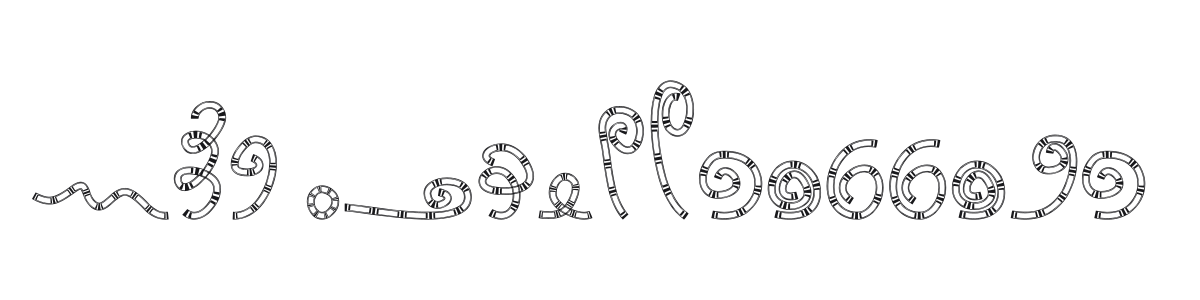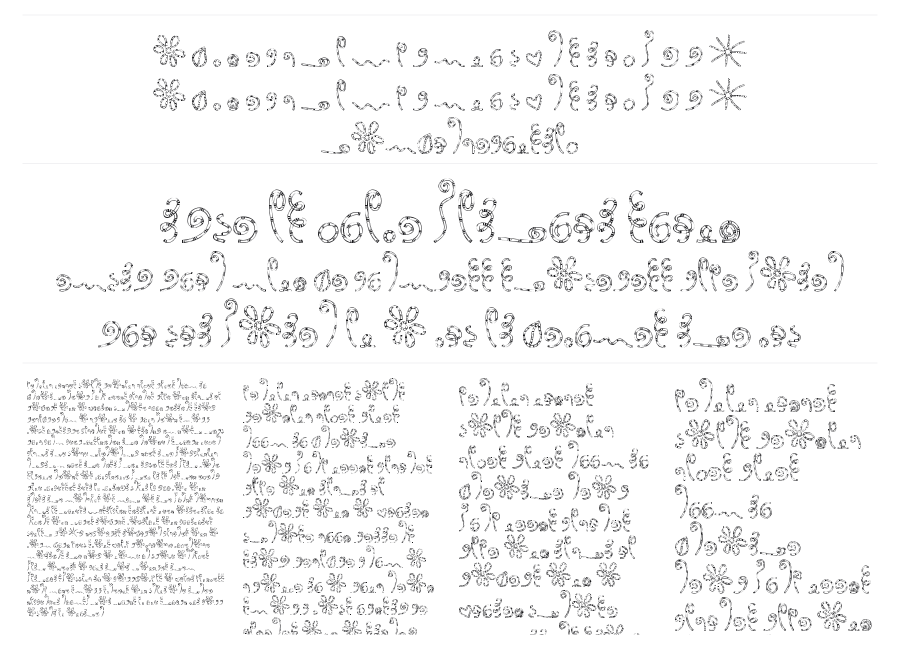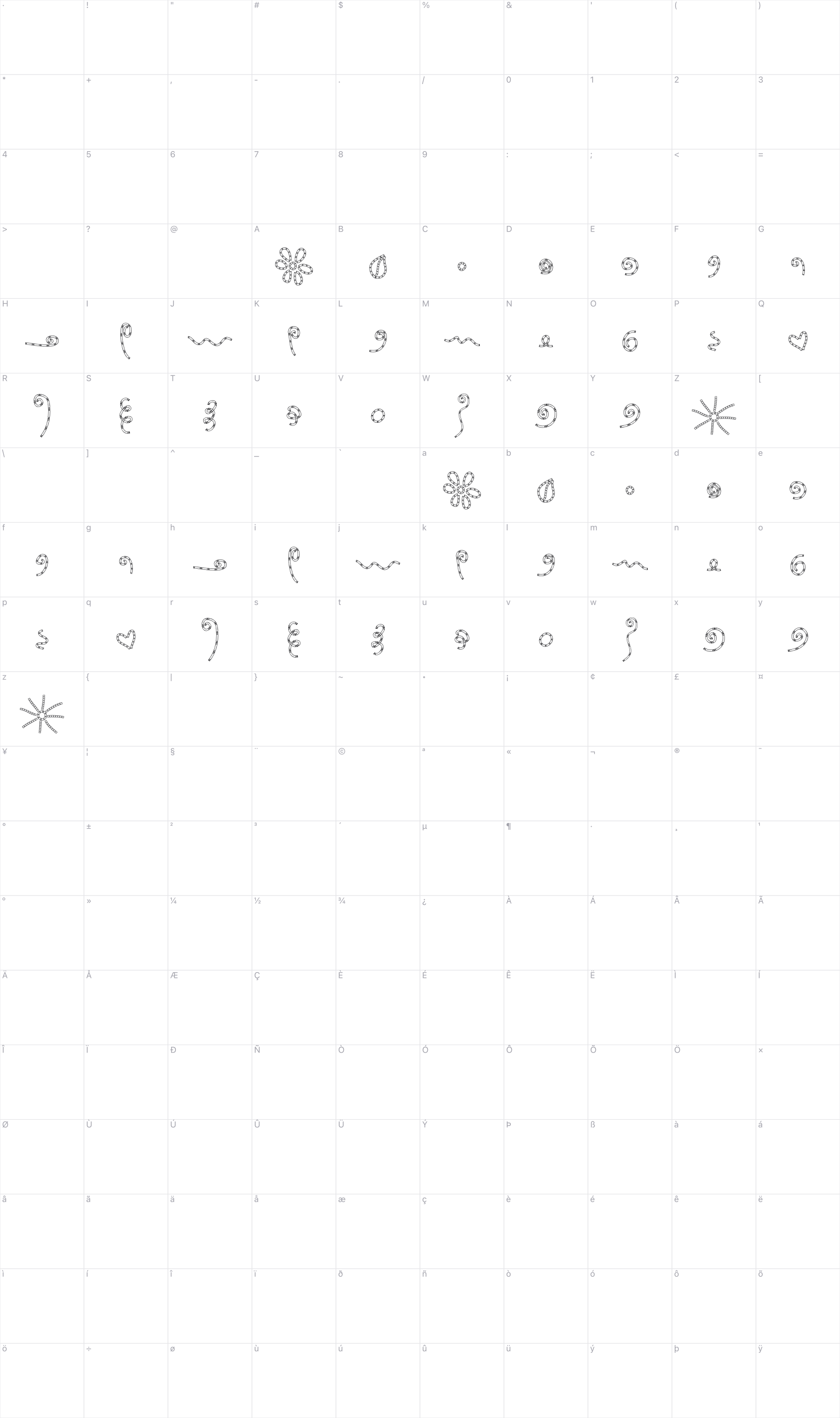
MTF Chunkiedoodle
MTF ChunkiedoodleLo is a wildly playful novelty display font where every character is built from thick, segmented tube-like strokes that loop and curl like yarn or ribbon. The stitched interior lines and oversized swirling terminals give it an unmistakably handmade, crafty feel. Great for children's projects, craft branding, and anything that needs to look like it was doodled with a fat marker.